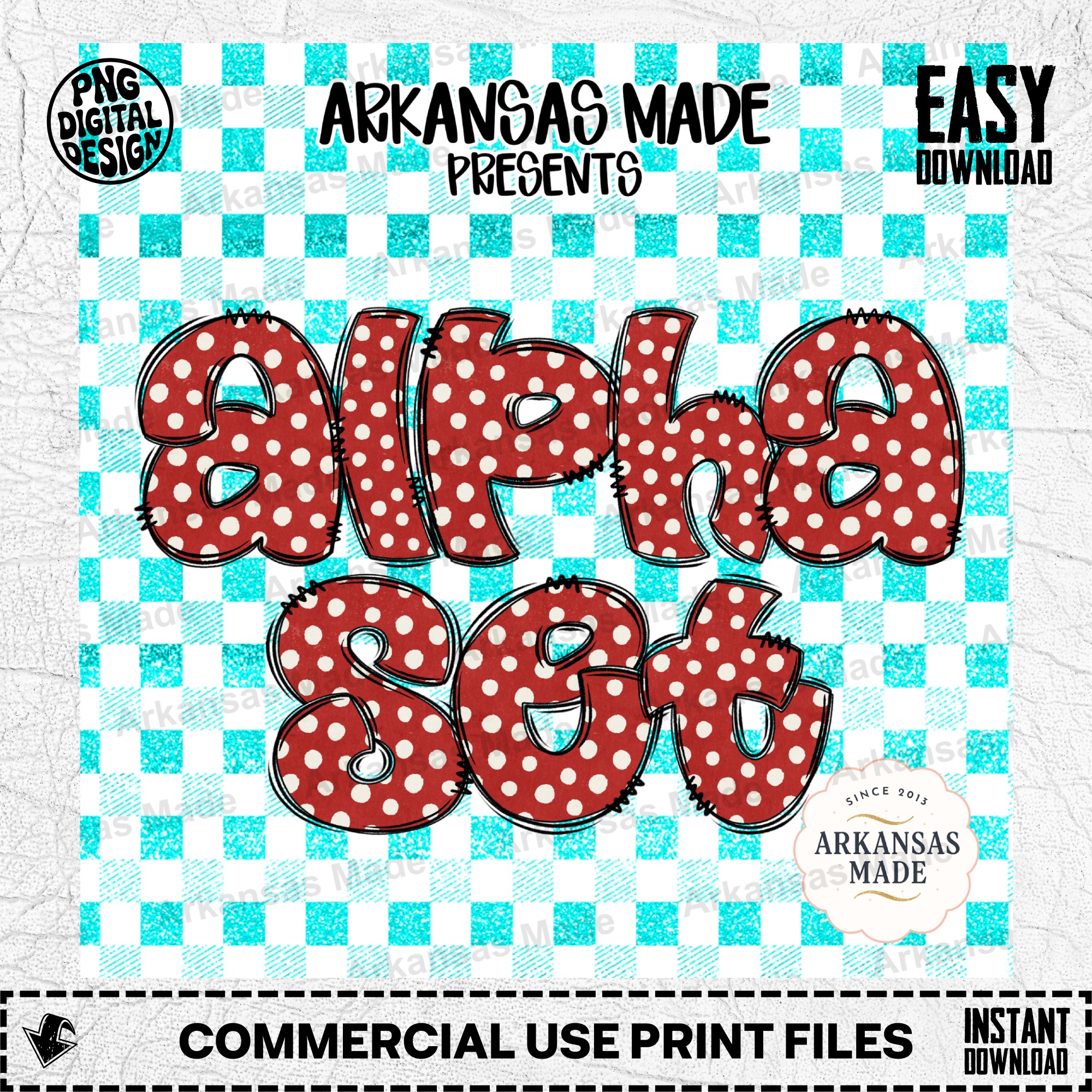
Red Polka Dot Alpha PNG Set, Distressed Stitched Alphabet Digital Letters, Cute Retro Font PNGs, Crafting Supply, Commercial Use Clipart
Get this adorable Red Polka Dot Alpha PNG Set, featuring distressed stitched letters perfect for digital crafts, sublimation, and personalized designs! Instant download. Elevate your DIY projects, t-shirt designs, or nursery decor with this cute, retro-inspired alphabet. Ideal for crafters, small business owners, and teachers looking for unique digital elements to create charming gifts and custom artwork effortlessly.